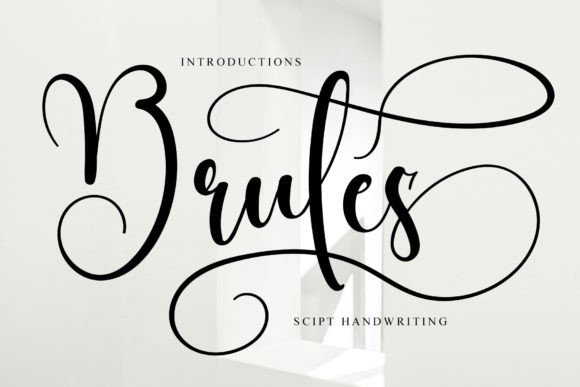
Introducing Brutes Font: Elevate Your Designs with Elegance and Magic
Are you a designer, crafter, or DIY enthusiast looking for a font that can add a touch of sophistication and whimsy to your projects? Look no further than Brutes Font, a beautiful handwritten script that can transform any creative idea into a stunning work of art. In this article, we’ll dive into the world of Brutes Font, exploring its features, benefits, and uses, as well as provide tips on how to make the most of this magical font.
What is Brutes Font?
Brutes Font is a carefully crafted handwritten font designed to bring a touch of elegance and magic to your designs. With its flowing script and intricate details, this font is perfect for a wide range of creative projects, from Instagram posts and social media graphics to DIY crafts and calligraphy art. Whether you’re a seasoned designer or a crafting novice, Brutes Font is easy to use and can help you create stunning visuals that capture attention and inspire imagination.
Features of Brutes Font
So, what makes Brutes Font so special? Here are just a few of its standout features:
- Handwritten script: Brutes Font boasts a beautiful, handwritten script that adds a personal touch to any design.
- Elegant and whimsical: This font combines elegance and playfulness, making it perfect for a wide range of creative projects.
- Magical details: Brutes Font features intricate details and flourishes that add a touch of magic to your designs.
Uses for Brutes Font
Brutes Font is incredibly versatile, making it suitable for a wide range of creative projects, including:
- Instagram and social media graphics: Add a touch of elegance and sophistication to your social media posts and stories.
- DIY crafts: Use Brutes Font to create beautiful calligraphy art, decorate journals, or add a personal touch to handmade gifts.
- Calligraphy scripts: This font is perfect for creating stunning calligraphy scripts for special occasions, such as weddings, birthdays, and holidays.
- Graphic design projects: Brutes Font can be used in a variety of graphic design projects, from brochures and flyers to posters and banners.
Tips for Using Brutes Font
To get the most out of Brutes Font, here are a few tips to keep in mind:
- Experiment with different sizes: Brutes Font looks great in a variety of sizes, from small and delicate to large and bold.
- Play with colors: This font pairs well with a range of colors, from soft pastels to rich jewel tones.
- Add embellishments: Consider adding embellishments, such as glitter or texture, to give your designs an extra touch of magic.
- Mix and match: Don’t be afraid to combine Brutes Font with other fonts and design elements to create a unique look.